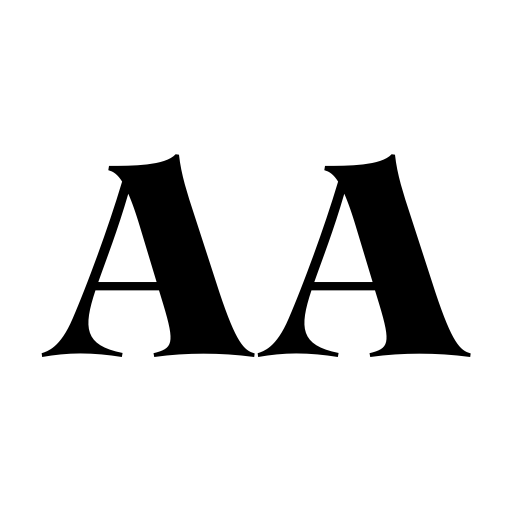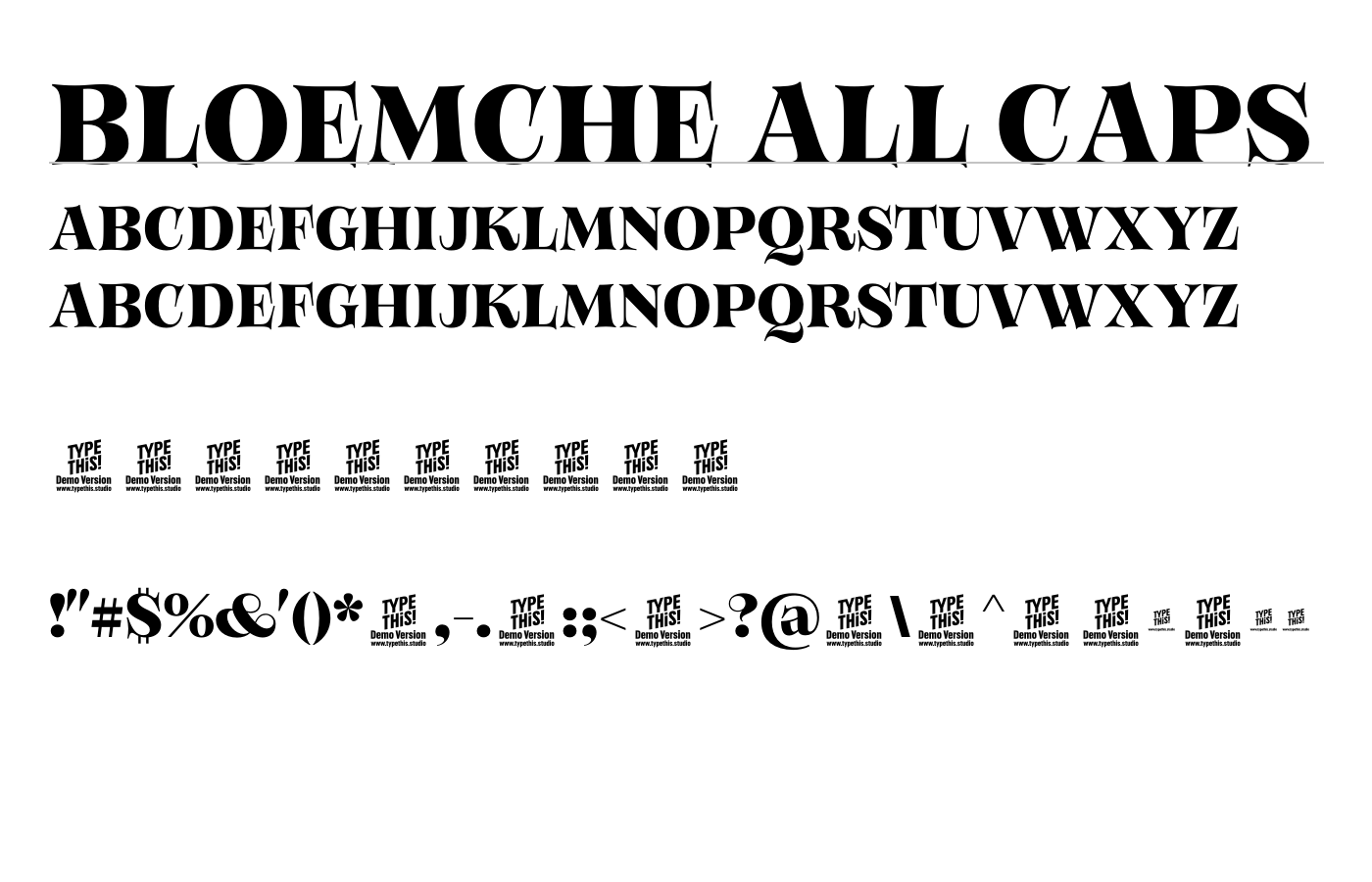
Bloemche All Caps is a bold, serif typeface with strong contrast between thick and thin strokes, featuring sharp, bracketed serifs and a classic yet playful character. Its distinct, all-uppercase design with elegant curves and unique letter details makes it perfect for eye-catching headlines, luxury branding, and editorial projects that want to combine traditional sophistication with a modern twist. This font works exceptionally well where a stylish, confident presence is needed to make a memorable impact.
Bloemche All Caps Font
About Bloemche All Caps Font